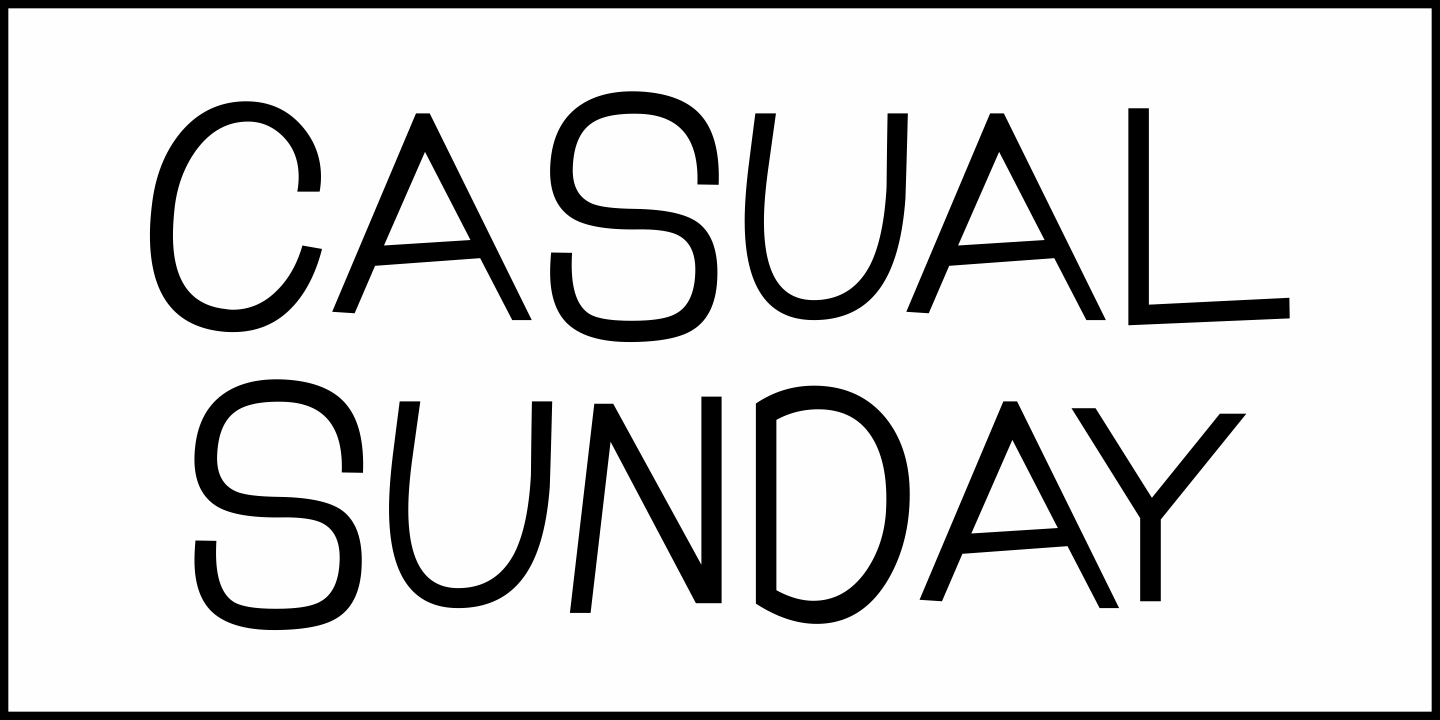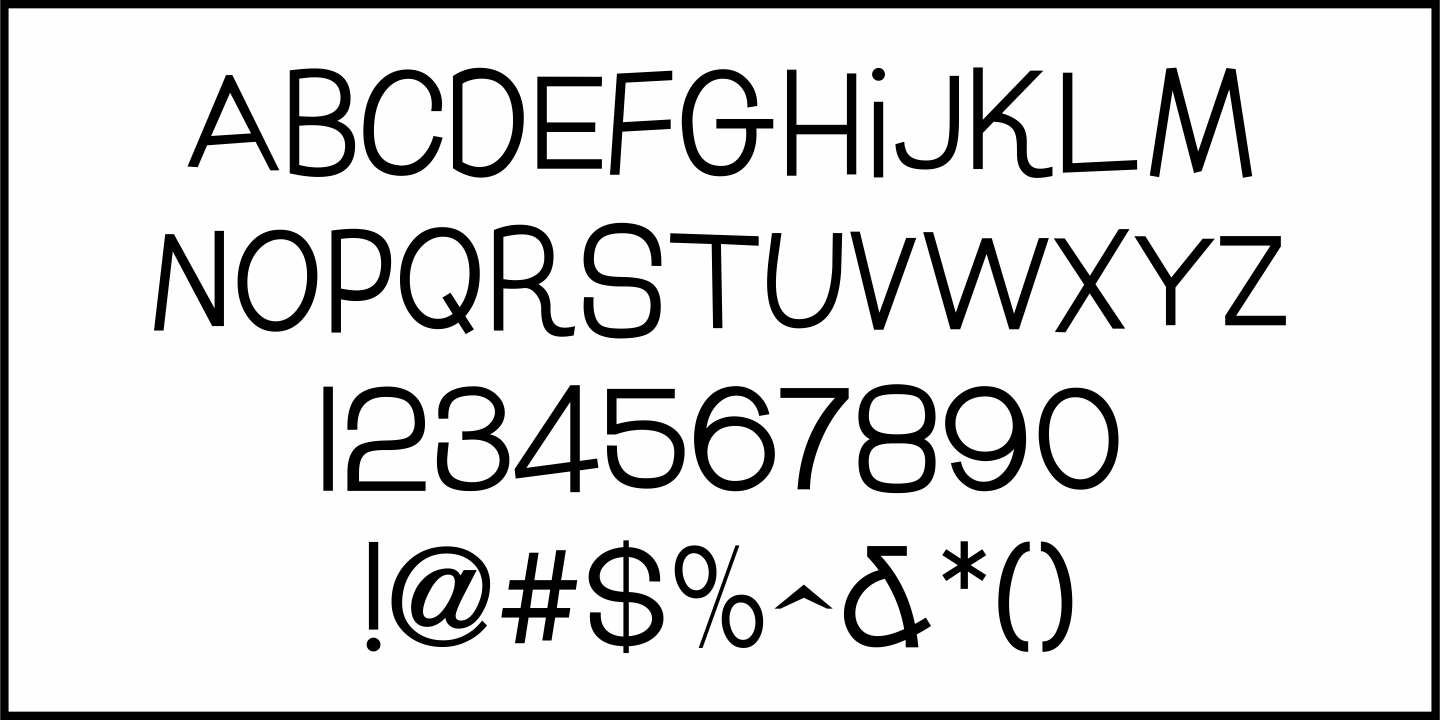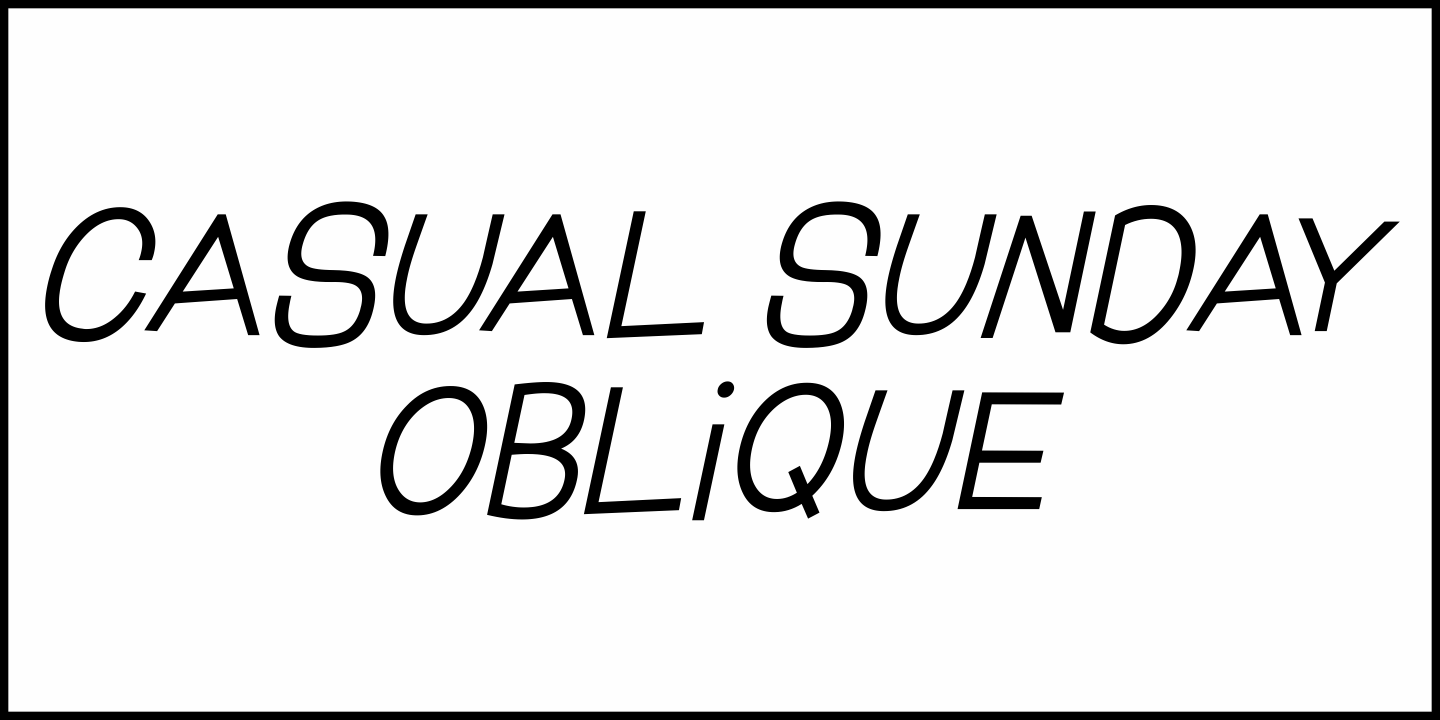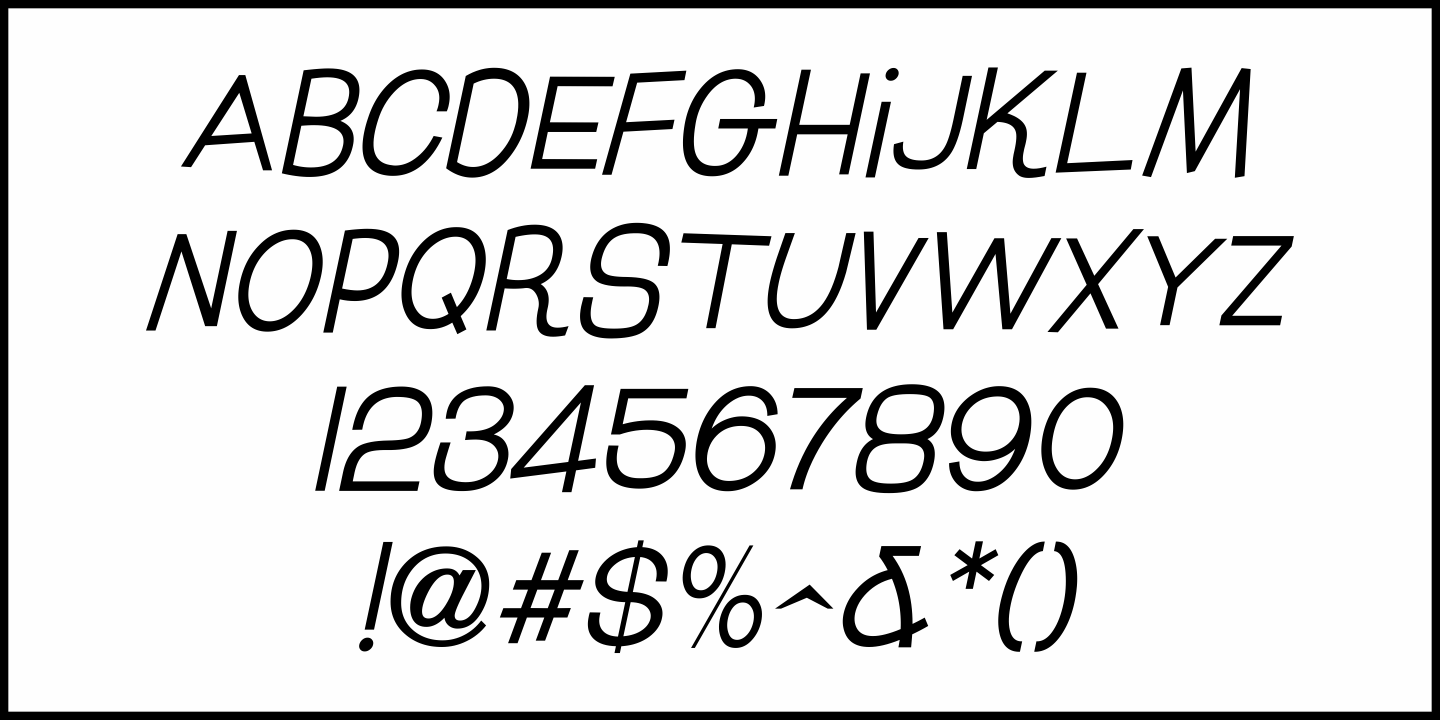
Casual Sunday
In the November 11, 1963 issue of Boxoffice Magazine was an ad for the romantic comedy "Sunday in New York".
The playful, casual sans hand lettering used in the word copy inspired Casual Sunday JNL, which is available in both regular and oblique versions.
Casual Sunday JNL Regular by Jeff Levine Fonts